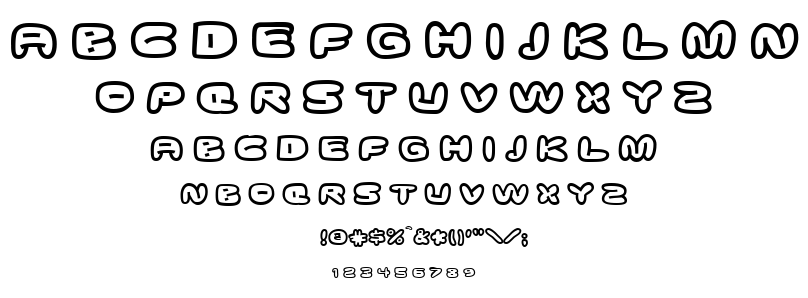
Ghostmeat
Ghostmeat Font
Ghostmeat is a hollow, cartoon font made out of phantasm cutlets. Don’t forget to read the files inside the zip for details. Updated in 2012.